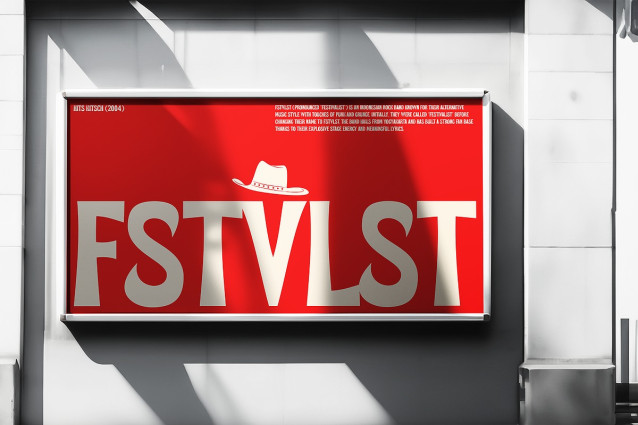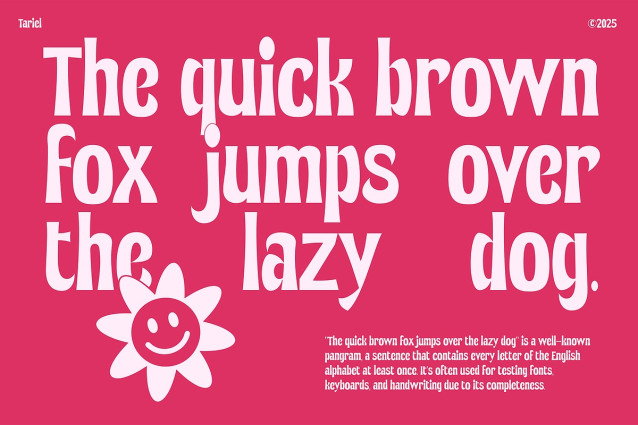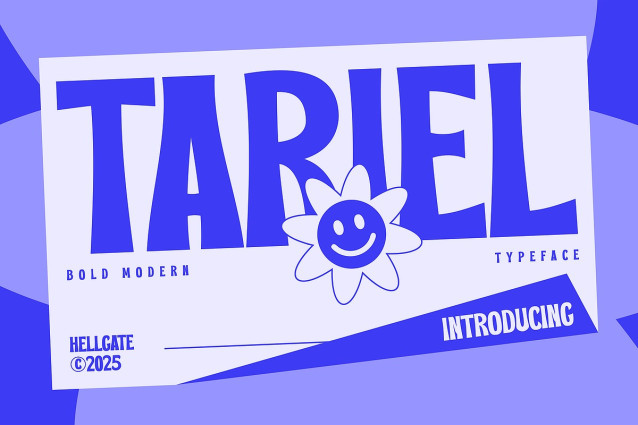
Tariel Font
Tariel Font is a statement-making, bold modern typeface that impeccably blends with retro themes. Tariel exudes an unmissable, sturdy personality that’s hard to ignore. The Tariel font offers the flexibility to easily edit text and color, fostering a creative experience par excellence. High-quality rendering is a given, ensuring your projects are not just visually appealing but also of superior quality. No compromises on that front! leaving no room for hassle when you are focusing on your ultimate creative expression.
Tariel font – a typeface that’s just as bold as your ideas!